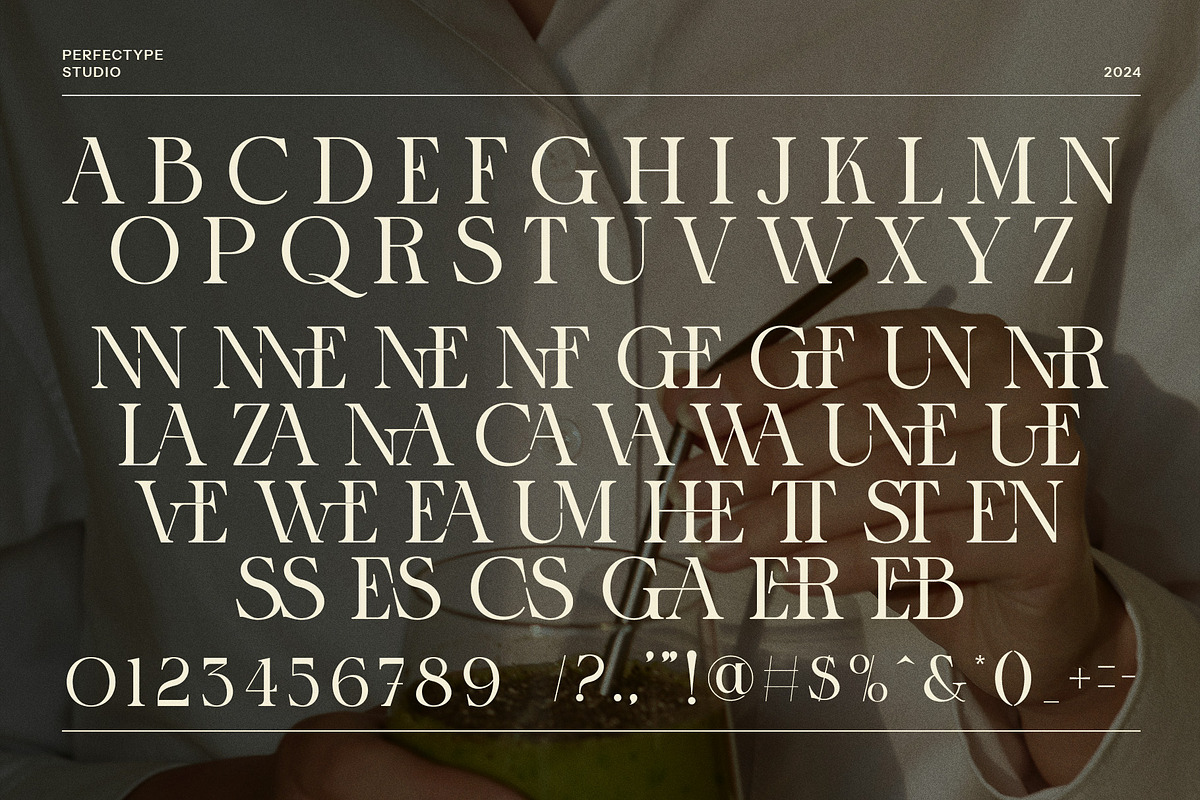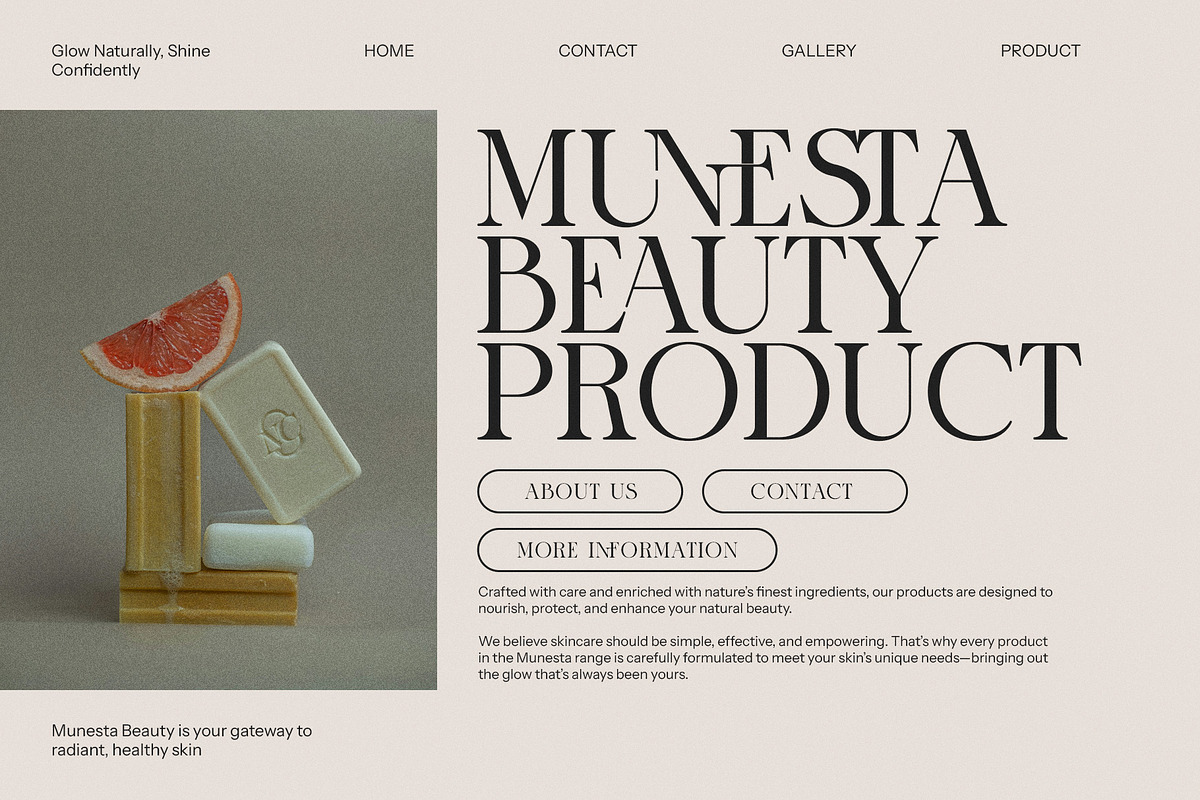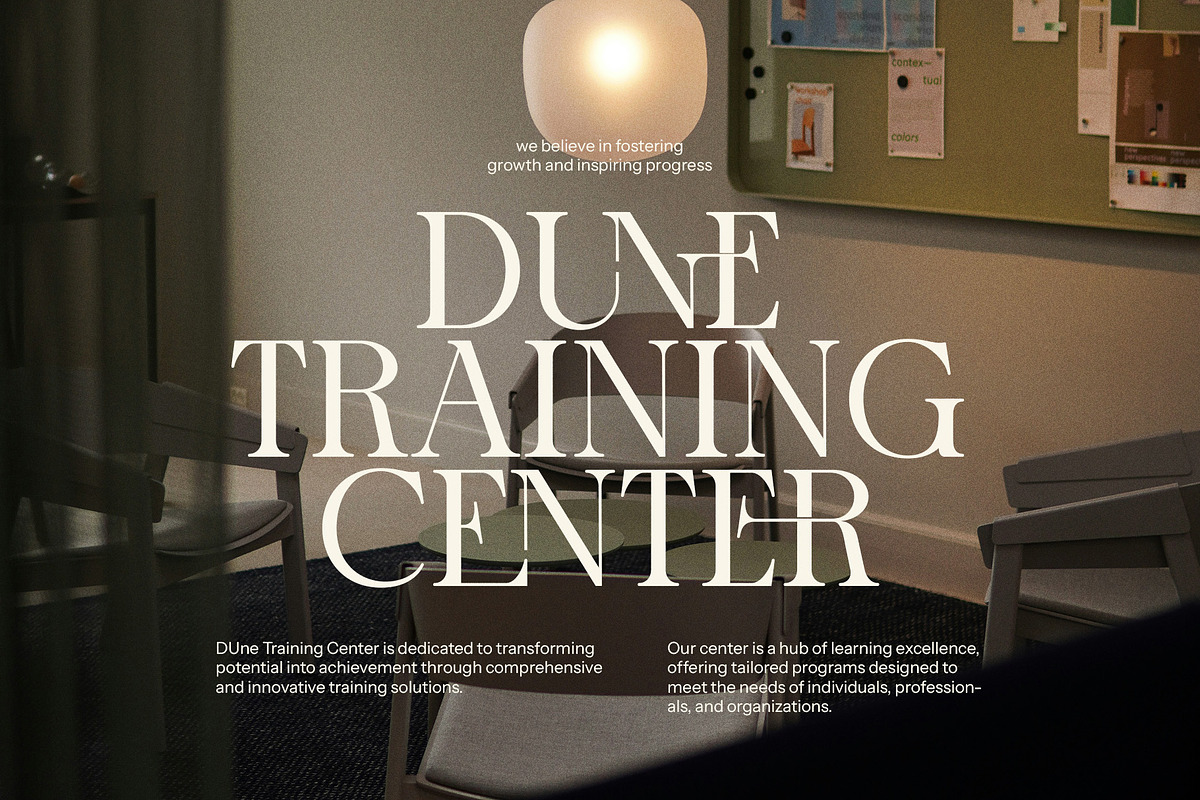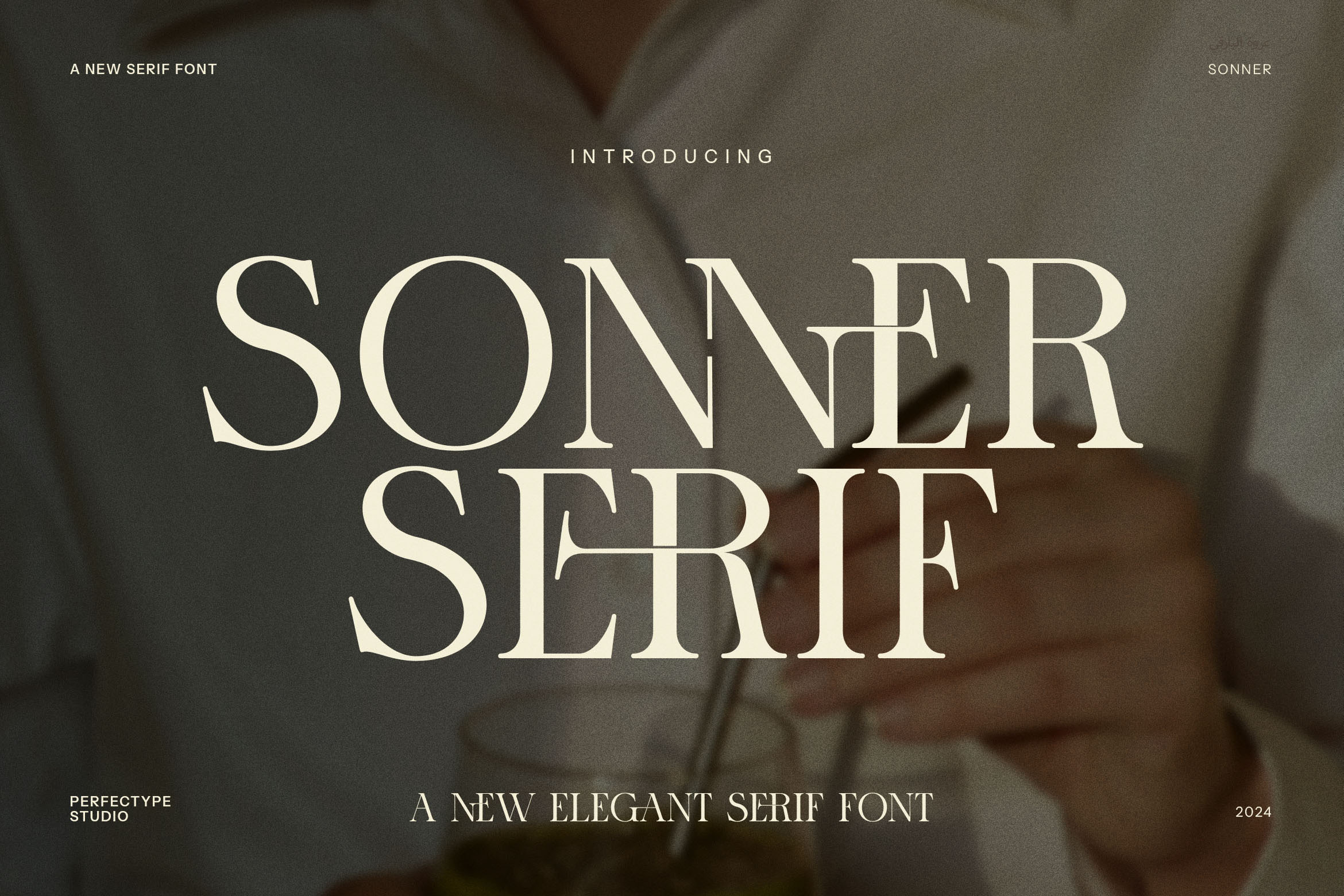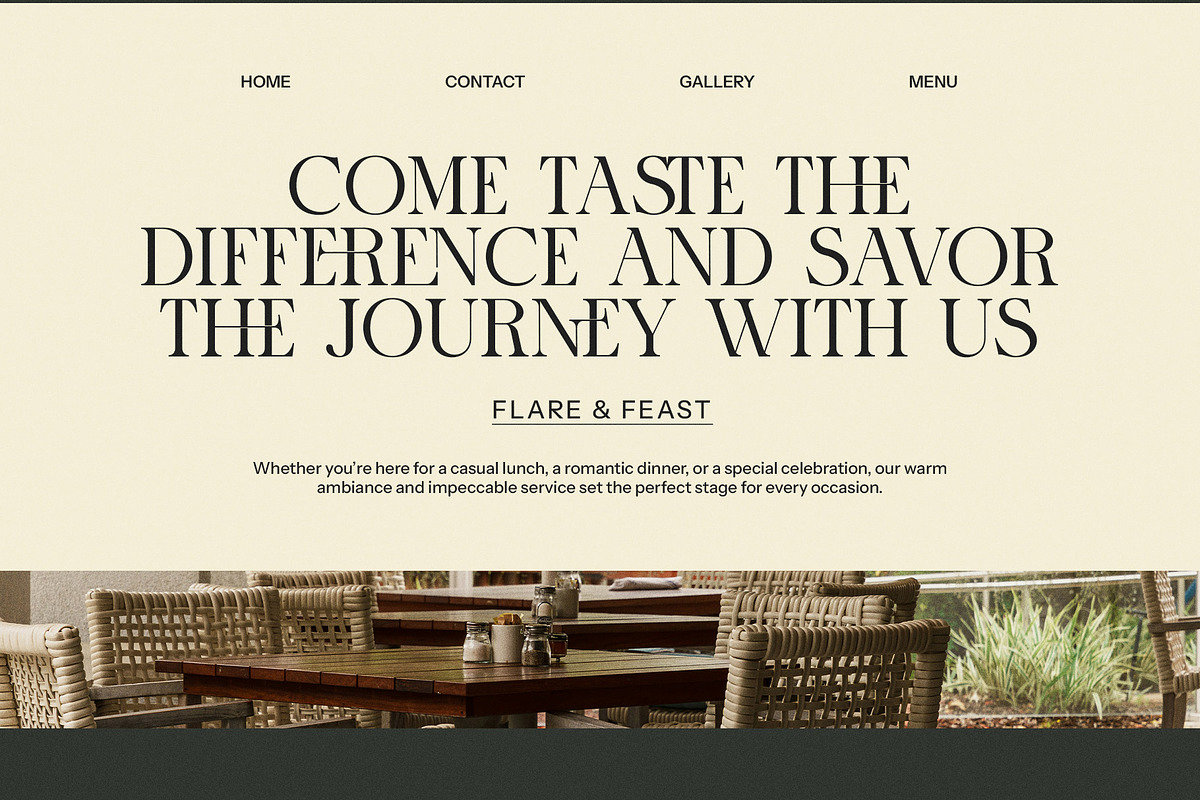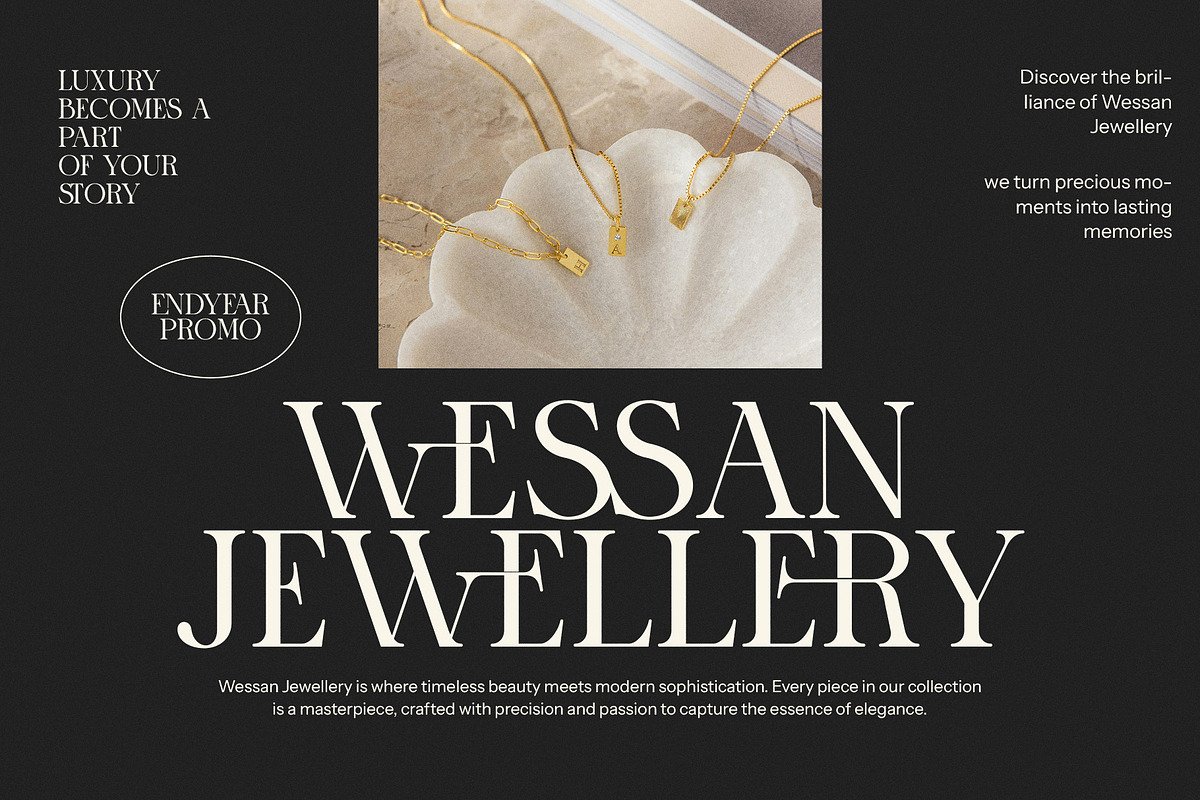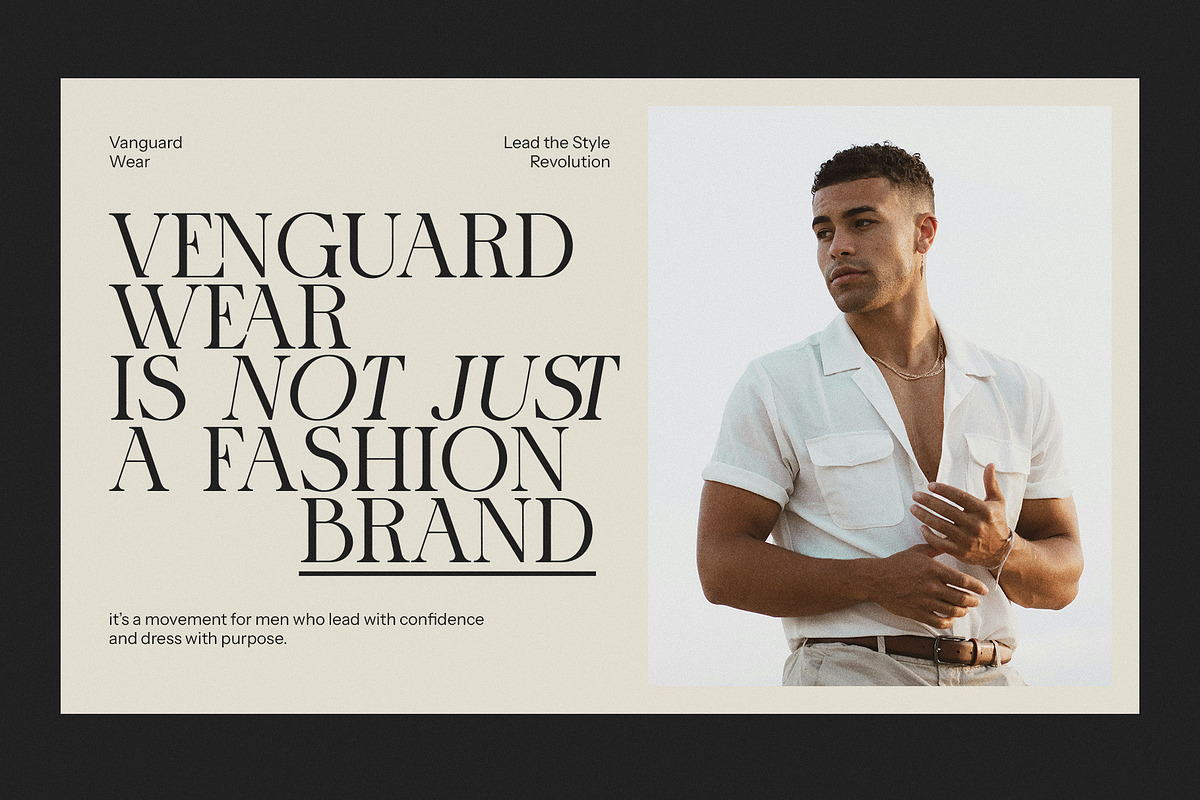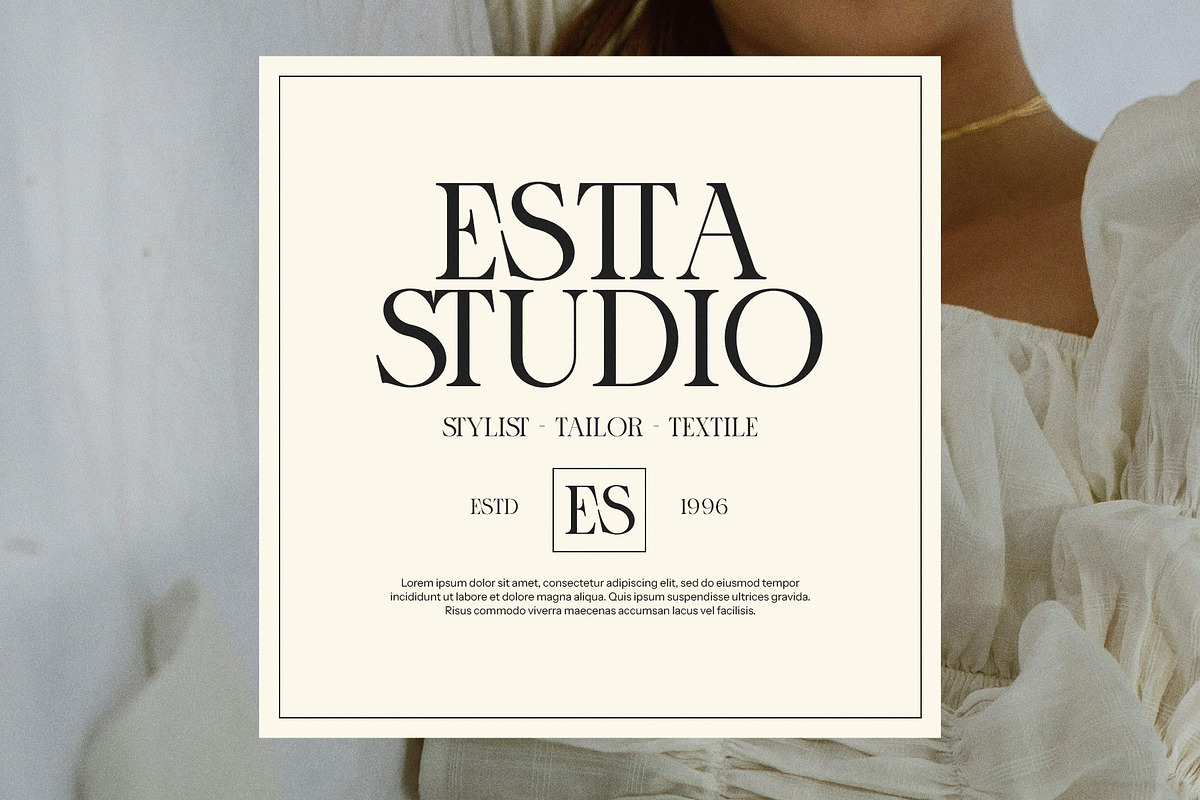
Sonner Elegant Serif Font
Sonner Elegant Serif Font is the epitome of modern sophistication and timeless design. This refined serif font features a harmonious blend of classic elements and contemporary style, making it a versatile choice for a wide range of design projects. With its sleek, beautifully crafted letterforms, Sonner adds an air of elegance and luxury to any creation, from high-end branding to refined editorial layouts.
Ideal for logos, product packaging, and advertising, Sonner exudes a sense of prestige and quality. Its unique and carefully balanced shapes offer exceptional legibility while maintaining a sense of artistic flair. Whether you're designing for fashion boutiques, upscale restaurants, or modern lifestyle brands, this font can transform your visual identity into something truly memorable.
Sonner’s sophisticated curves and sharp edges make it equally suitable for both print and digital designs. From sleek websites and captivating social media graphics to high-end magazine spreads and stylish product labels, it stands out in every setting. Its versatility extends to a variety of industries, including luxury goods, beauty, food, and more, offering endless possibilities for creative expression.
If you seek a font that blends modern elegance with a timeless appeal, Sonner Elegant Serif Font is your perfect solution. Its unique personality and refined aesthetics will elevate your designs and give your brand a distinctive, polished look. Bring sophistication to your next project with Sonner, and leave a lasting impression wherever it’s used.